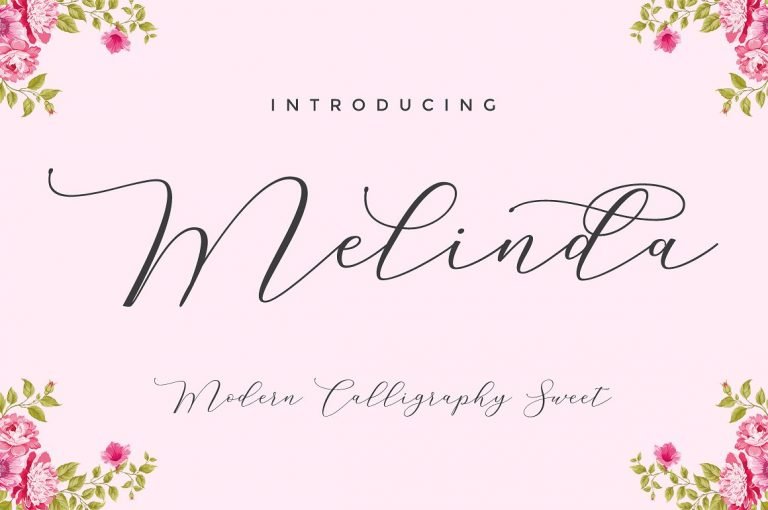
Melinda Script Font
Start the day with a very impressive typeface, a very creative and beautiful typography, If you are looking for a calligraphy type then this is it! Introducing Melinda Font. Melinda is a beautiful and interesting calligraphy handwriting font. You can see from scratches that give a realistic and modern style. font looks sweet and full of the best characters. you can use this font in your design product range like invitation, mockup, embossed, branding card and others.